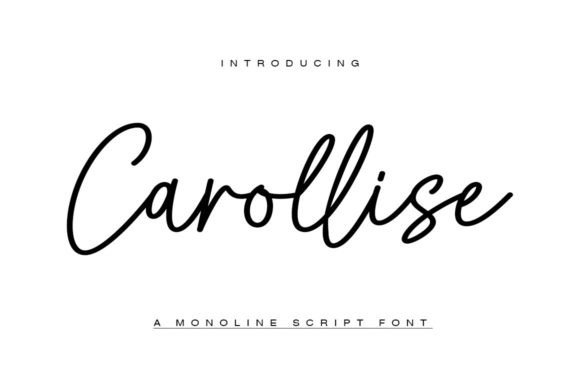
Introducing Carollise Font: Elevate Your Designs with Elegance
In the world of typography, a font can make or break a design. For crafters, designers, and artists, finding the perfect typeface that adds a touch of elegance and sophistication to their projects can be a daunting task. That’s where Carollise Font comes in – an exquisite script font designed to bring beauty and balance to your creations.
What is Carollise Font?
Carollise is an elegant script font that strikes the perfect balance between style and legibility. Not too thin and not too thick, this font boasts a unique charm that sets it apart from other script fonts. Its balanced and varied design makes it an ideal choice for a wide range of projects, from wedding invitations and branding materials to digital content and craft designs.
Key Features of Carollise Font
- Elegant and Versatile: Carollise Font is designed to be elegant and versatile, making it perfect for a variety of projects, from formal to informal.
- Balanced Design: The font’s balanced design ensures that it’s not too thin or too thick, making it easy to read and visually appealing.
- Variety of Glyphs and Swashes: With PUA encoding, Carollise Font comes with a range of glyphs and swashes that allow you to add a personal touch to your designs.
Why Choose Carollise Font?
With so many fonts available, why choose Carollise Font? Here are a few reasons why designers and crafters love this elegant script font:
- Unique Style: Carollise Font offers a unique style that’s both elegant and sophisticated, making it perfect for designs that require a touch of luxury.
- High-Quality Design: Carollise Font is designed with high-quality in mind, ensuring that it looks great in both digital and print formats.
Using Carollise Font in Your Designs
Carollise Font is perfect for a wide range of design projects, including:
- Wedding Invitations: Add a touch of elegance to your wedding invitations with Carollise Font.
- Branding Materials: Use Carollise Font to create stunning branding materials, such as logos, business cards, and letterheads.
- Digital Content: Add a touch of sophistication to your digital content, such as blog posts, social media graphics, and email newsletters.
- Craft Designs: Use Carollise Font to create beautiful craft designs, such as handmade cards, scrapbooking, and mixed media art.
Tips for Getting the Most Out of Carollise Font
To get the most out of Carollise Font, here are a few tips:
- Experiment with Glyphs and Swashes: With PUA encoding, don’t be afraid to experiment with different glyphs and swashes to add a personal touch to your designs.
- Pair with Other Fonts: Carollise Font pairs well with other fonts, so don’t be afraid to experiment with different combinations.
- Use in Different Sizes: Carollise Font looks great in different sizes, so experiment with using it in various sizes to add visual interest to your designs.
In conclusion, Carollise Font is an elegant script font that’s perfect for designers and crafters looking to add a touch of sophistication to their projects. With its balanced design, PUA encoding, and range of glyphs and swashes, Carollise Font is a versatile and beautiful font that’s sure to elevate your designs.